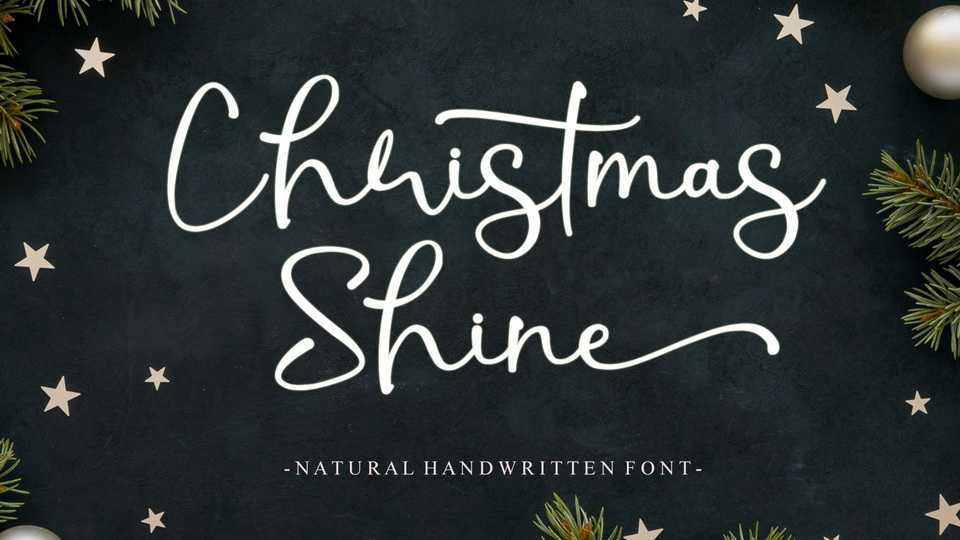
Download Christmas Shine font, a beautiful and refined script typeface. Christmas Shine font has a classy, elegant and modern look that can be used for logos, branding, invitations, stationery, wedding designs and much more.
Designer: Letterafa Studio